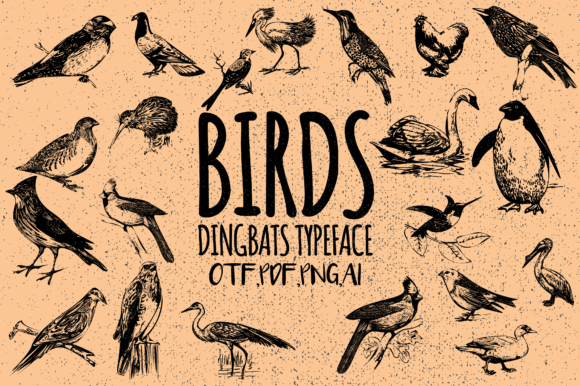
Enter the realm of creativity, where avian elegance takes flight in the digital world – introducing Birds Font, the captivating dingbats font that transforms your words into a symphony of feathered artistry. Designed with precision and an unwavering eye for detail, Birds Font graces your engineering drawings with a touch of elegance, breathing life into your blueprints.
Unlock the power of 62 distinct bird glyphs, each meticulously crafted to capture the essence of these celestial creatures. With a simple keystroke, transform capital letters into soaring eagles, lowercase letters into graceful swallows, and numbers into playful hummingbirds. The possibilities are boundless, inviting you on an artistic journey where imagination knows no bounds.
Elevate your engineering drawings from mere technical blueprints to breathtaking works of art. Let Birds Font guide your creativity, adding an unexpected element of wonder to your designs. Visualize the awe-inspiring spread of a majestic eagle's wings as it adorns your architectural plans, or the delicate flight of a hummingbird as it dances across your mechanical schematics.
With Birds Font, experience the harmonious fusion of functionality and aesthetics. Discover a font that not only enhances the clarity and precision of your engineering drawings but also sparks a sense of wonder and inspiration. Let your creations soar beyond the confines of the ordinary and take flight with Birds Font, where innovation and beauty converge. Embrace the allure of Birds Font today and witness your engineering drawings transformed into masterpieces that captivate and inspire.